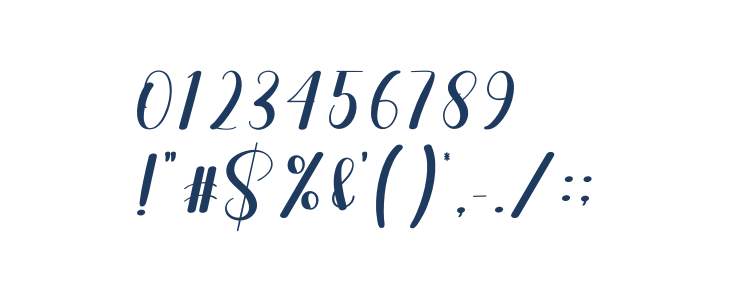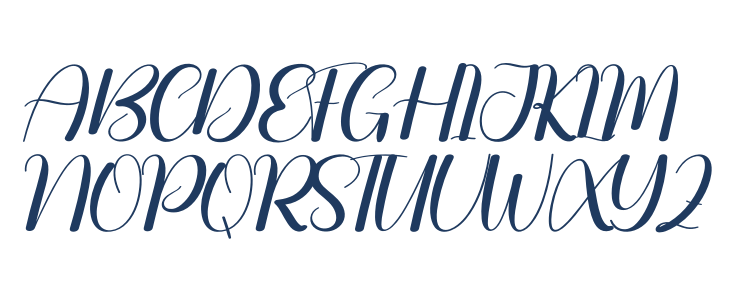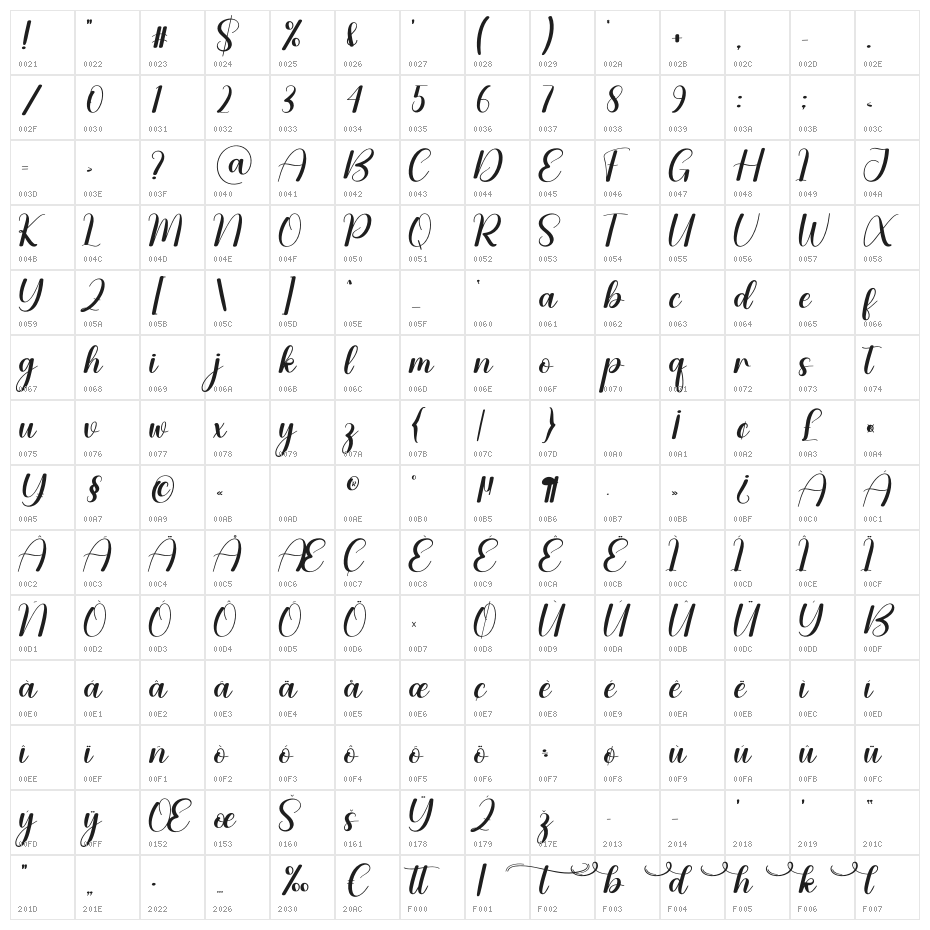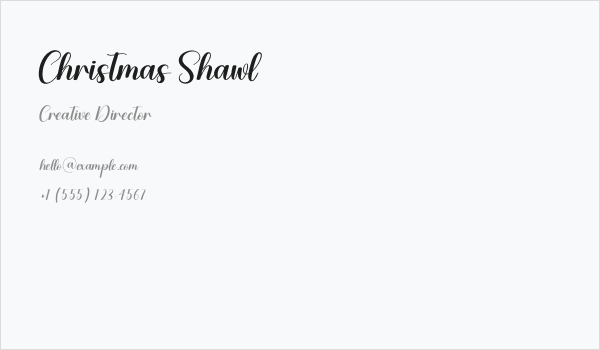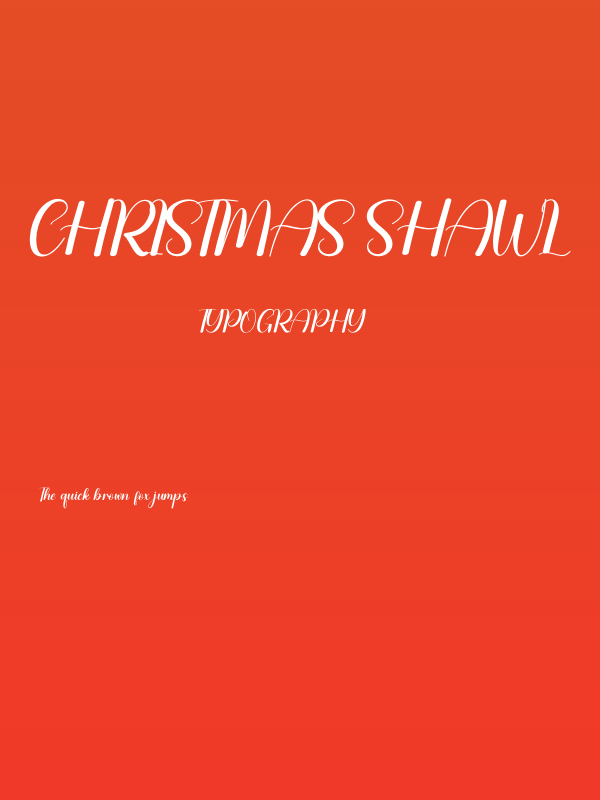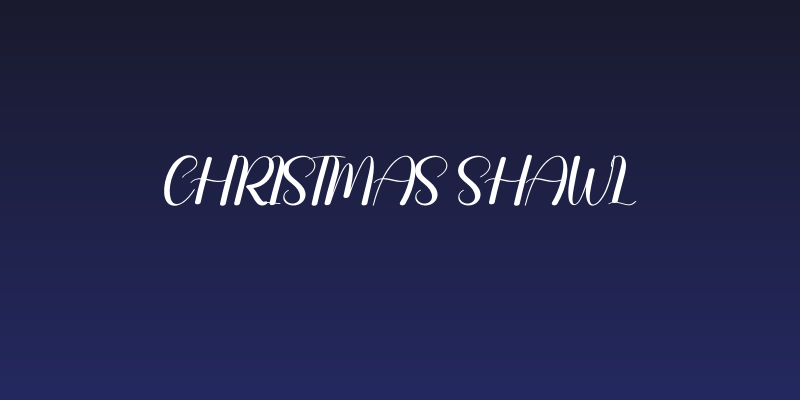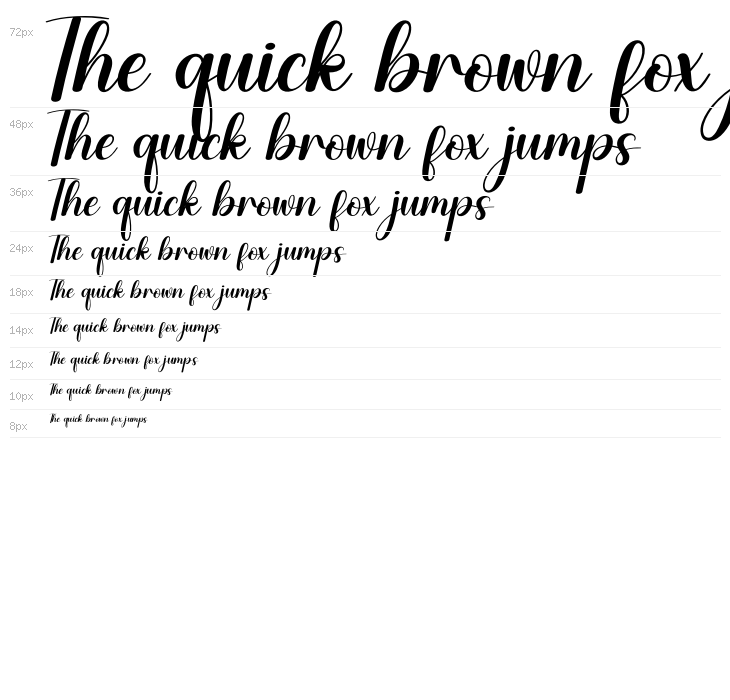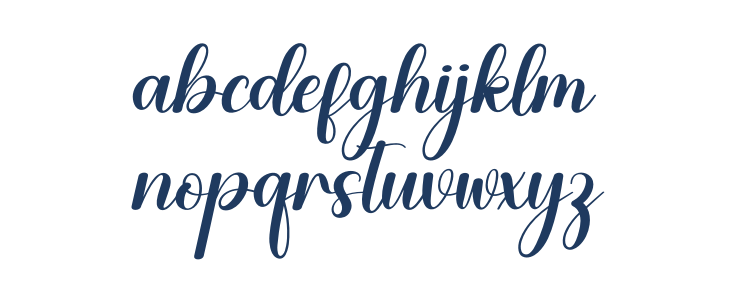
Christmas Shawl Font
Christmas Shawl Description
A flowing, cursive script font with high contrast between thick and thin strokes, featuring elegant, sweeping letterforms and decorative swashes. The characters are connected in a handwritten style, with a playful yet sophisticated appearance.
| Overall Style | Decorative, Handwritten, Elegant |
| Use Case | Headlines, Logos, Invitations, Greeting cards |
| Proposed Projects | Greeting cards, invitations, holiday branding, event posters, decorative headlines. |